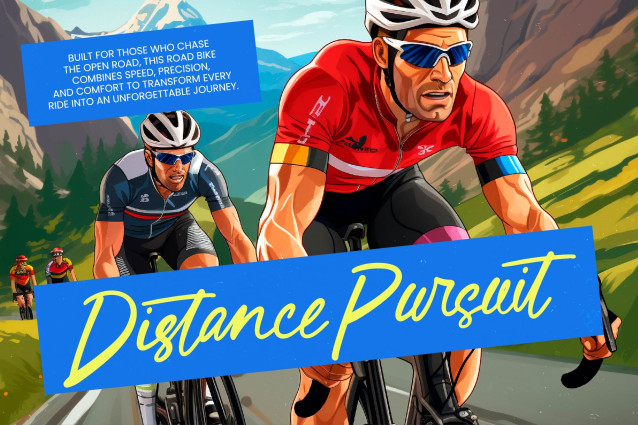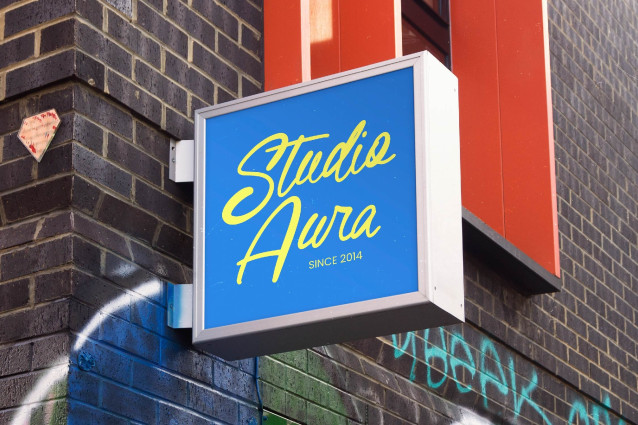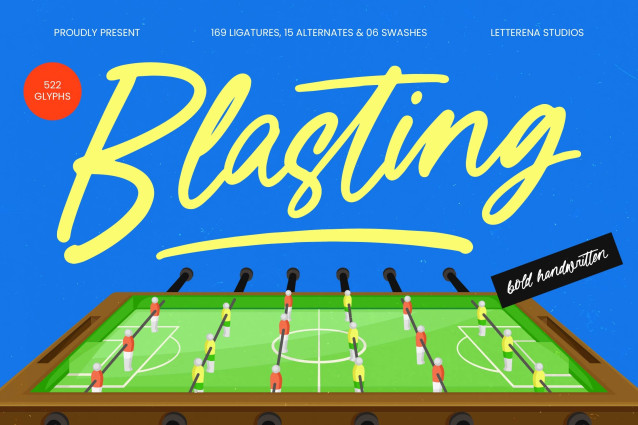
Ignite your creative vision with the high-impact energy of Blasting – Bold Handwritten. This energetic script is designed to command attention through its fluid strokes and authentic personality, making it an essential asset for designers seeking a bold aesthetic. With its handcrafted feel and vibrant momentum, Blasting – Bold Handwritten bridges the gap between raw human expression and professional typography.
Unlock unparalleled branding potential by integrating this typeface into your most ambitious projects. Blasting – Bold Handwritten is perfect for luxury branding, bold packaging, and high-end editorial design where a distinctive voice is required. Whether you are crafting modern merchandise, dynamic sports apparel, or engaging social media graphics, this font delivers a striking visual impact that resonates with contemporary audiences.